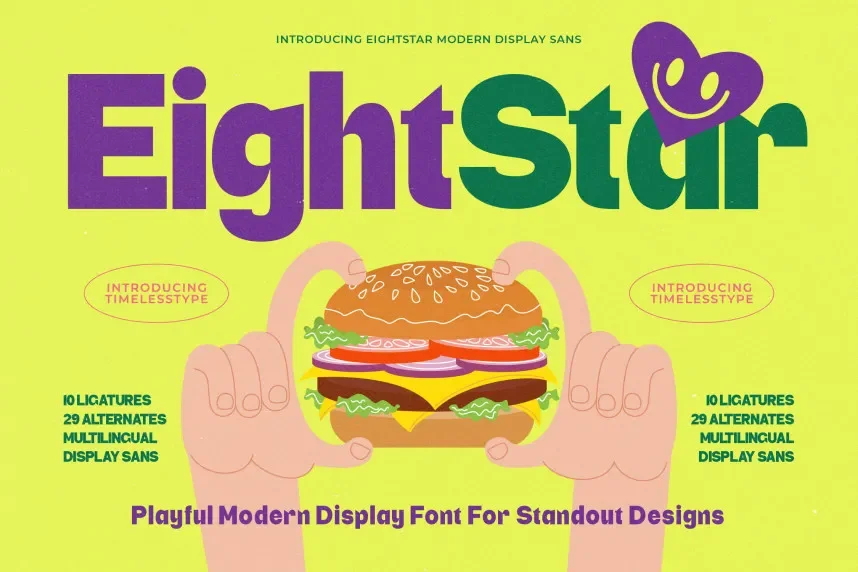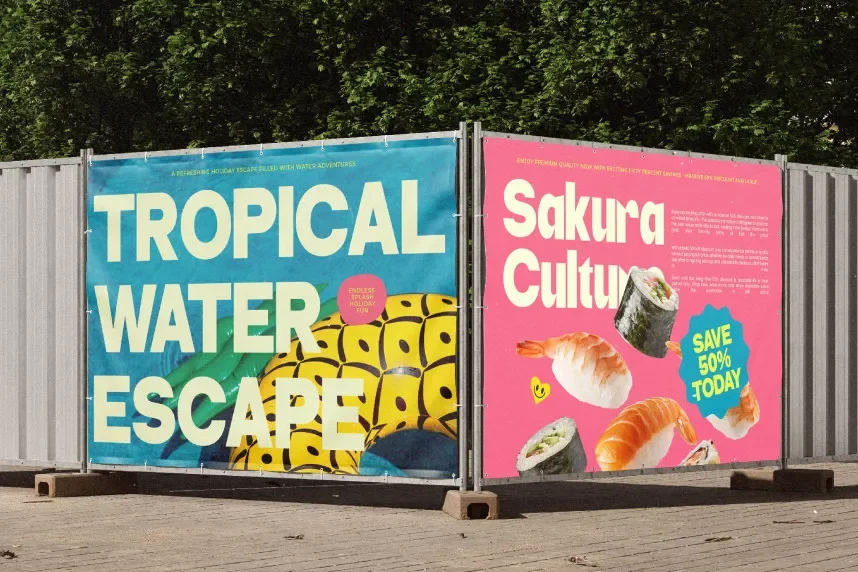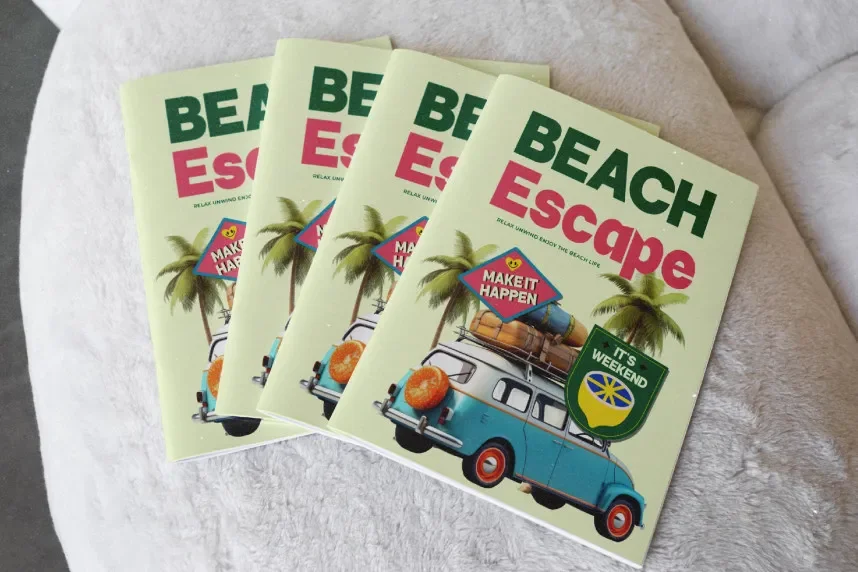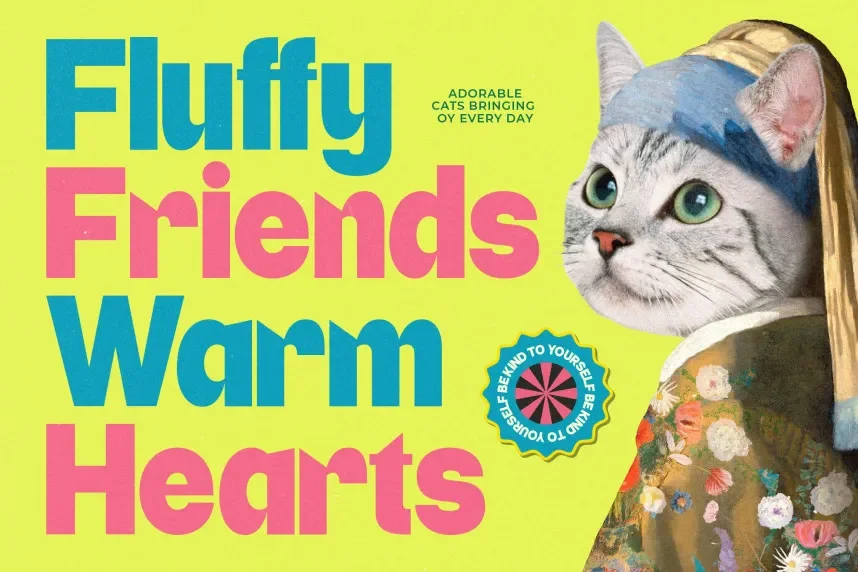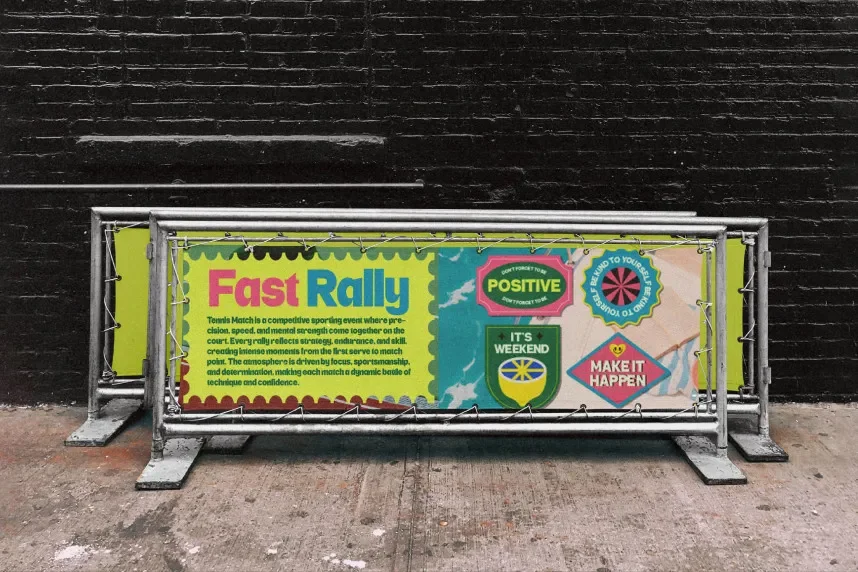
EightStar Font is a display typeface with bold, angular letterforms that create a striking visual presence. Its sharp edges and geometric design make it ideal for designs that need to stand out, such as posters, event branding, and headlines.